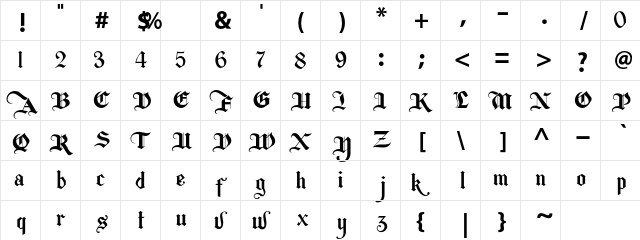
Berkahi Blackletter Bold
Design Context for Berkahi Blackletter Typeface
Berkahi Blackletter channels the dramatic heritage of Fraktur and Gothic scripts, bringing a sense of historical gravitas to any design. The heavy weight commands attention and anchors typographic hierarchies.
Well-suited to band logos, craft beer branding, tattoo lettering, and heritage-themed identities.
Font Pairing: Pair with a clean neutral sans-serif for body copy to let Berkahi Blackletter's character lead without overwhelming the composition.
Pro Tip: Use Berkahi Blackletter sparingly at large sizes. Even a single word set in blackletter can define the visual register of an entire design.